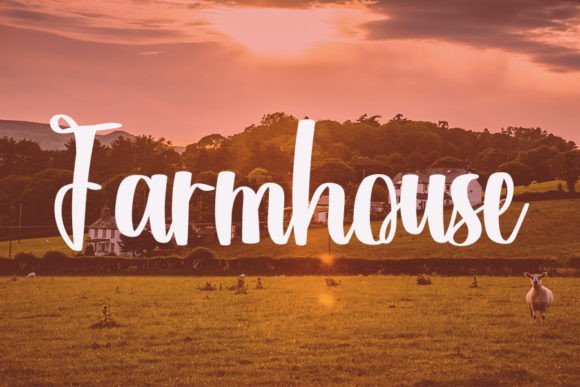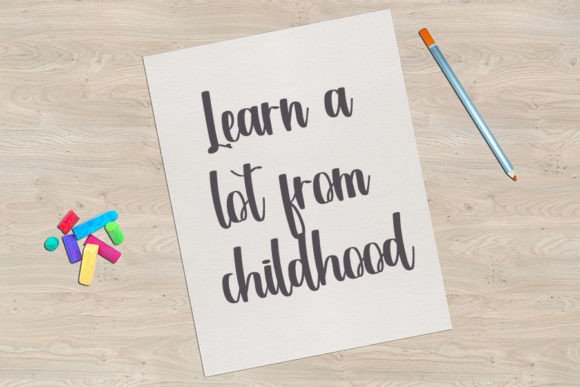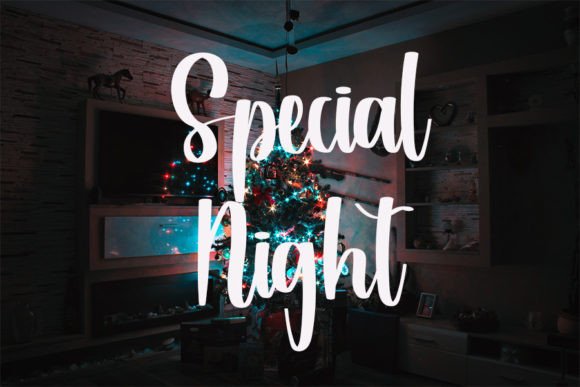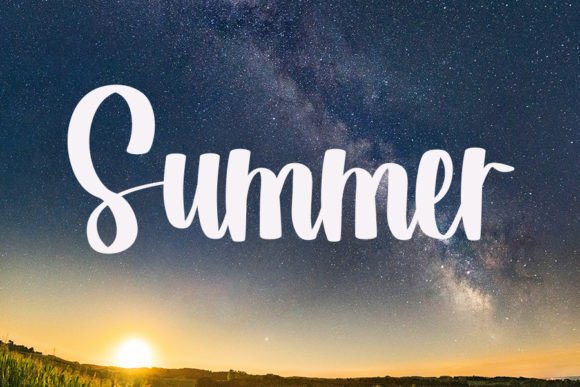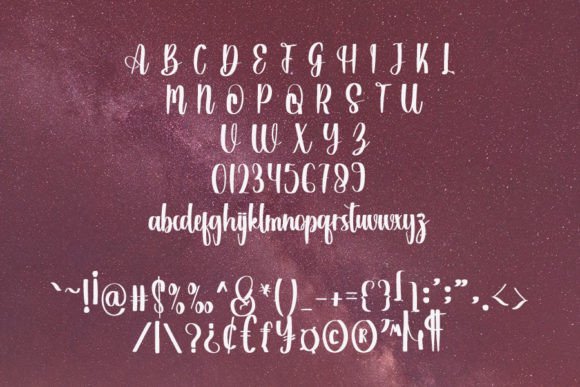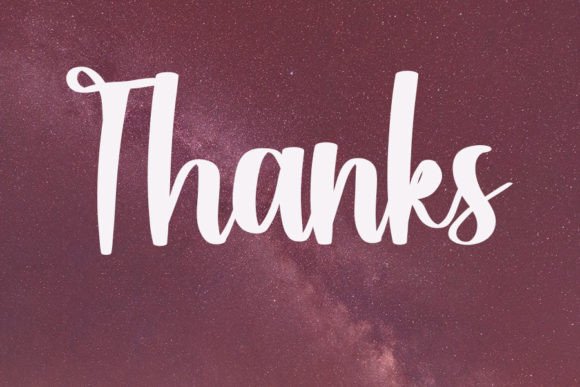
The Perfect Blend: Discovering the Butter Font
Have you ever been stuck in a creative rut, staring at a blank page or screen, waiting for inspiration to strike? It’s a feeling we’ve all experienced at some point in our design journey. But what if I told you that the key to unlocking your creative potential lies in the perfect blend of style and sophistication? Enter the Butter Font, a modern handwritten font that’s about to take your projects to the next level.
This elegant font is inspired by classic calligraphy, with a unique balance of thin and thick lines that gives it a spotless form. Whether you’re working on a branding project, a marketing campaign, or a simple blog post, the Butter Font is designed to enhance the beauty of your work. And for designers, that’s invaluable. With its versatility and modern vibe, this font is a must-have in any design toolkit.
Butter Font Key Features
- Font Size: The font is available in 7 weights, ranging from Light to Black, each with its unique characteristics.
- Resolution: The Butter Font is designed for high-resolution displays, making it ideal for use in digital applications and print materials.
- Unique Characteristics: The font features a unique blend of modern and vintage elements, with a distinctive rounded shape and subtle flair.
- Language Support: The Butter Font supports a wide range of languages, including Latin, Greek, Cyrillic, and more.
- Kerning and Ligatures: The font includes advanced kerning and ligature pairs, ensuring smooth and professional typography.
Designer Review: Butter Font
Overall, I think the Butter Font is a delightful, elegant choice for any project. ✨ The fluid curves and rounded edges create a soothing atmosphere, perfect for designs that require a touch of sophistication.
- ✨ Elegant curves and rounded edges that add a touch of sophistication
- ✨ Perfect for designs that require a calming atmosphere
- ✨ Highly legible, making it suitable for body text and titles
- ⚠️ May not be the best choice for bold, dramatic headings or titles that require a strong, edgy feel
- ⚠️ Limited character set, which may require additional font combinations for extended use
Overall, I think the Butter Font is a solid choice for designers who want to add a touch of elegance and sophistication to their projects. While it may not be the best fit for every design, it’s definitely worth considering for projects that require a calming atmosphere.
Experiment with different font sizes, colors, and styles to create a unique look.
Combine the Butter Font with other design elements, such as images and graphics, to create a visually appealing design.
The Butter Font is ideal for use in branding, marketing materials, and social media graphics.
It is also suitable for use in wedding invitations, event flyers, and other creative projects.
Alternatives to Butter Font for Designers
Open Sans is a clean and modern sans-serif font, suitable for body text and headings. It’s highly legible and works well in digital interfaces. Use Open Sans when you need a font that’s easy to read and versatile. Compared to Butter Font, Open Sans is more condensed and has a slightly less rounded feel.
Montserrat is a geometric sans-serif font, ideal for headings and titles. It’s highly customizable and works well in print and digital media. Use Montserrat when you need a font that’s bold and eye-catching. Compared to Butter Font, Montserrat is more angular and has a stronger geometric feel.
Lato is a modern sans-serif font, suitable for body text and headings. It’s highly legible and works well in digital interfaces. Use Lato when you need a font that’s clean and elegant. Compared to Butter Font, Lato is more rounded and has a softer feel.
Inter is a modern sans-serif font, designed for digital interfaces. It’s highly legible and works well in body text and headings. Use Inter when you need a font that’s clean and modern. Compared to Butter Font, Inter is more condensed and has a slightly less rounded feel, making it suitable for smaller text sizes.